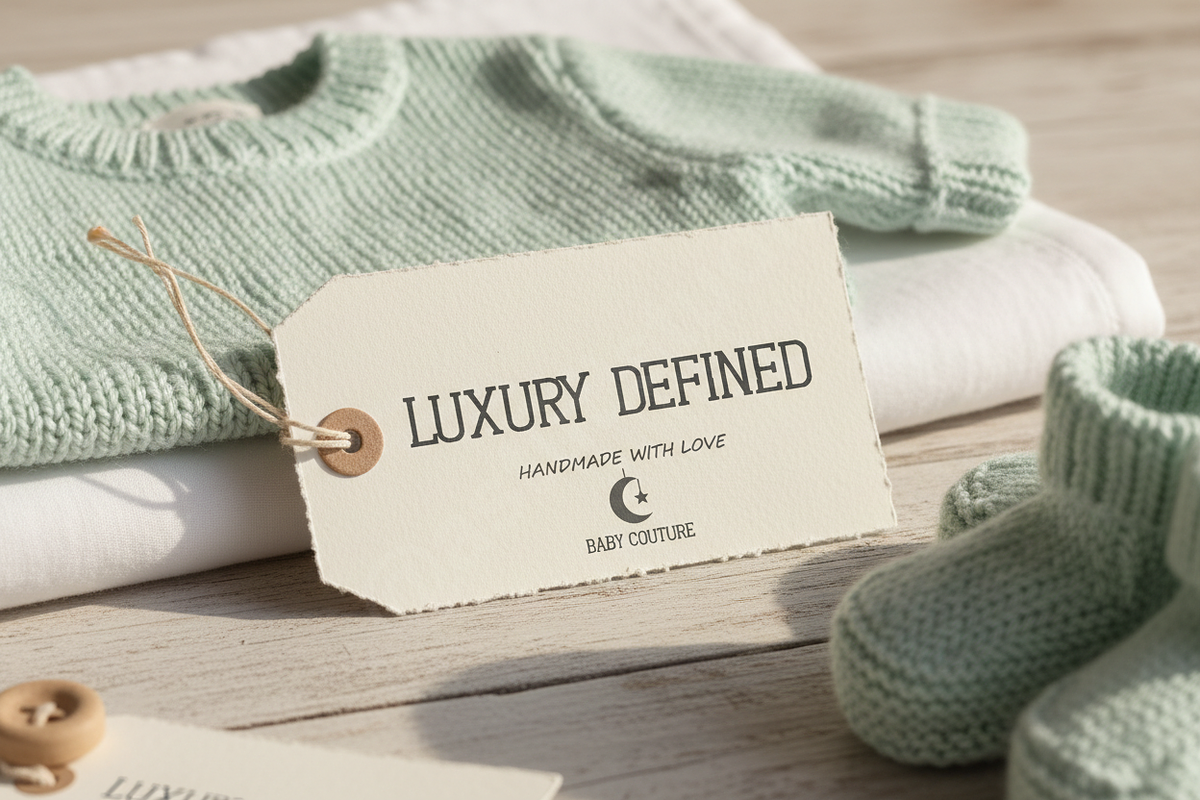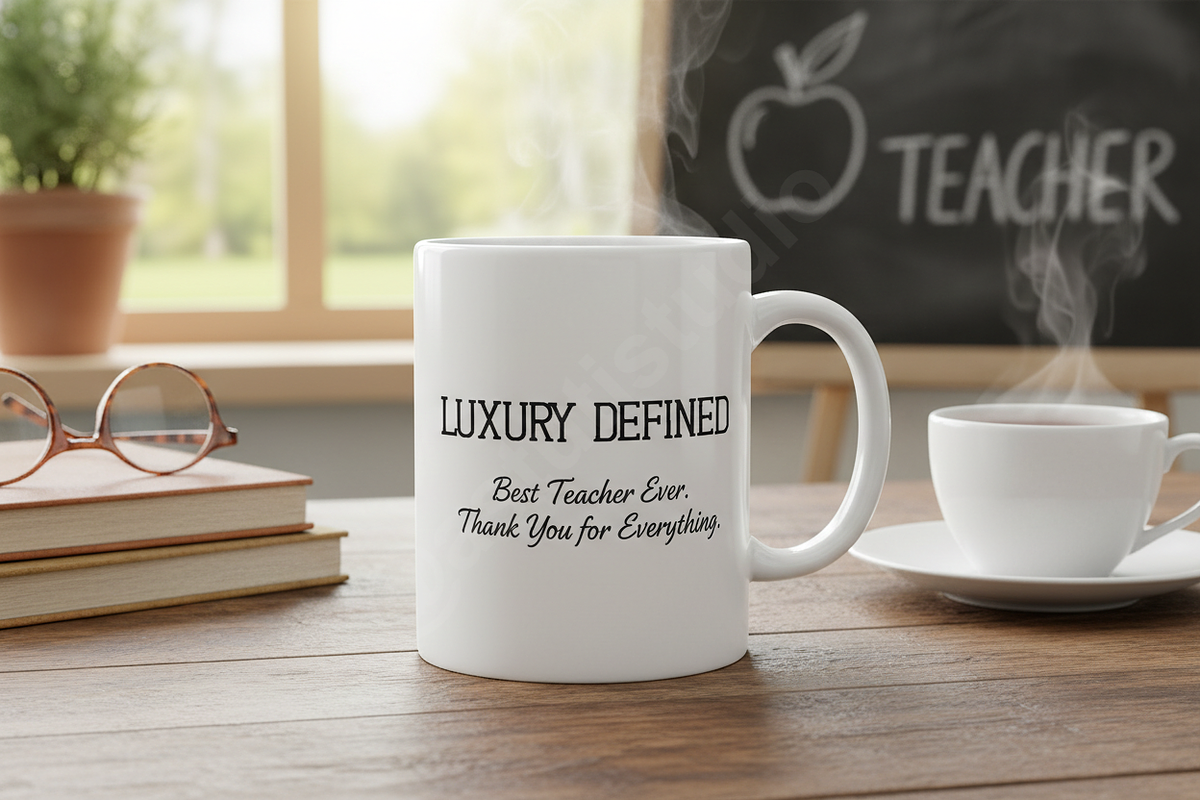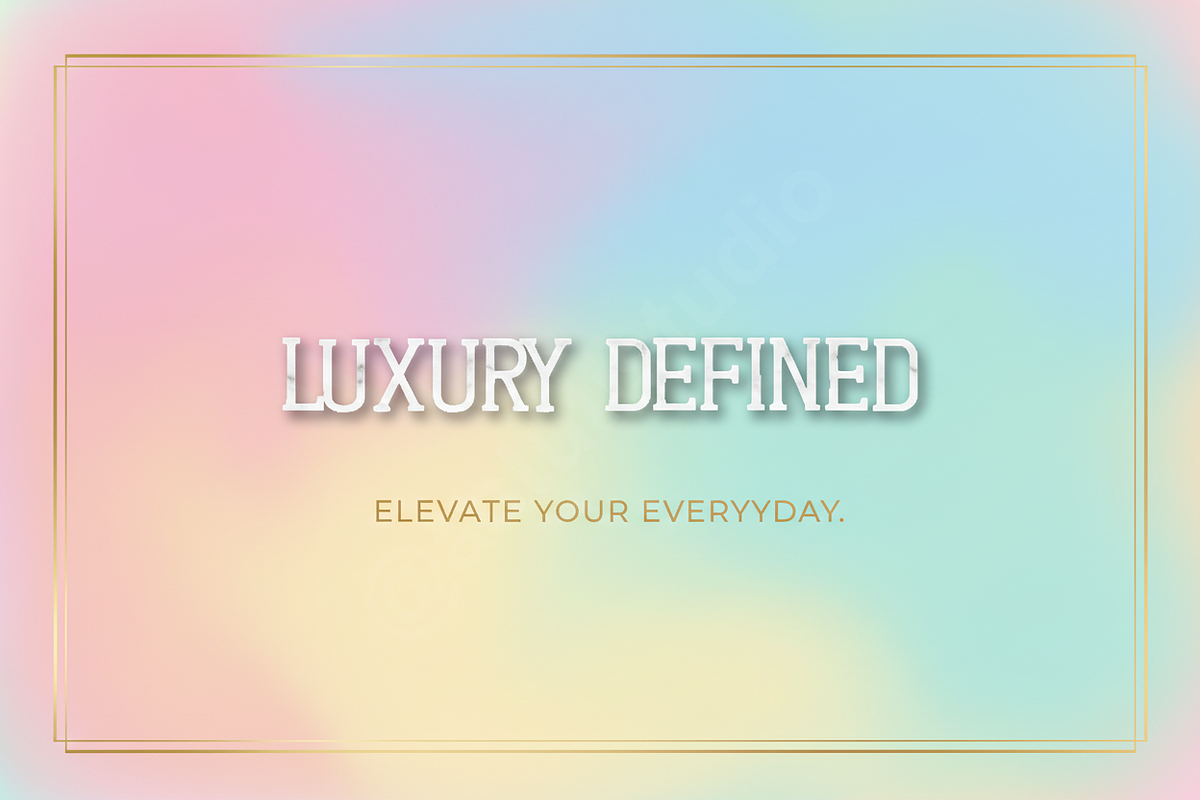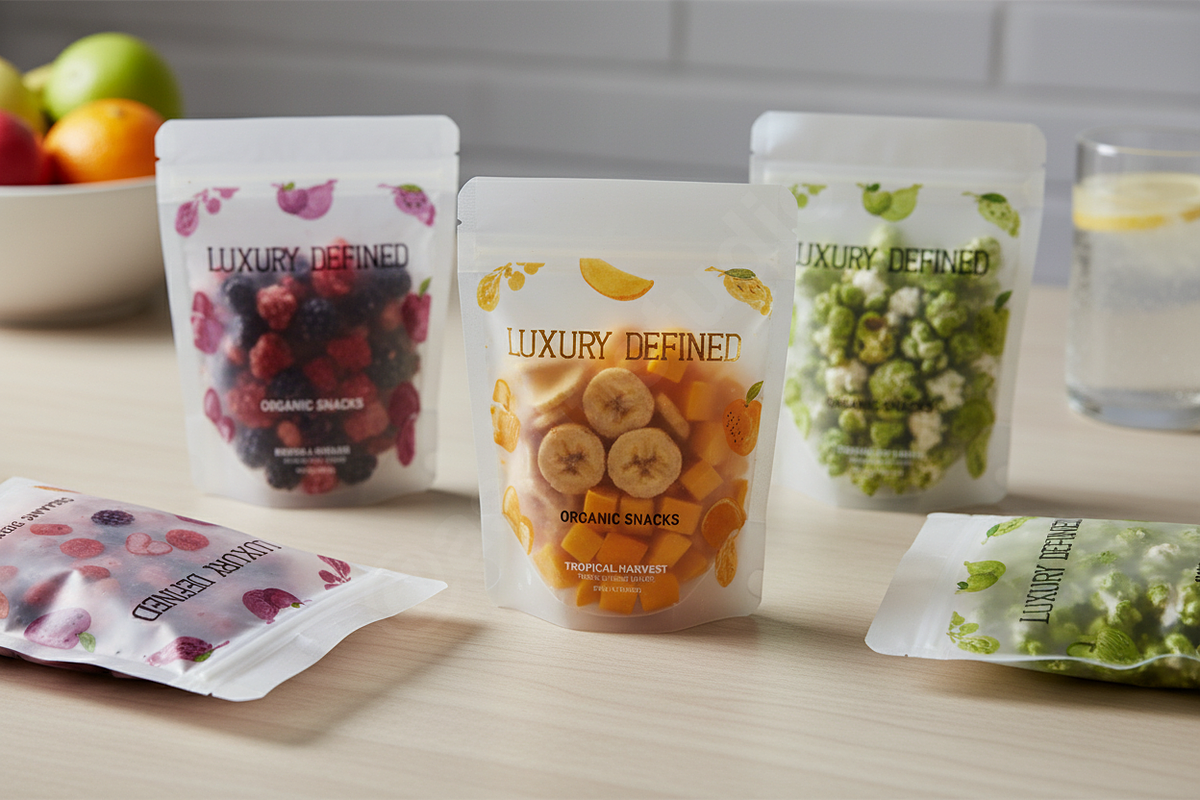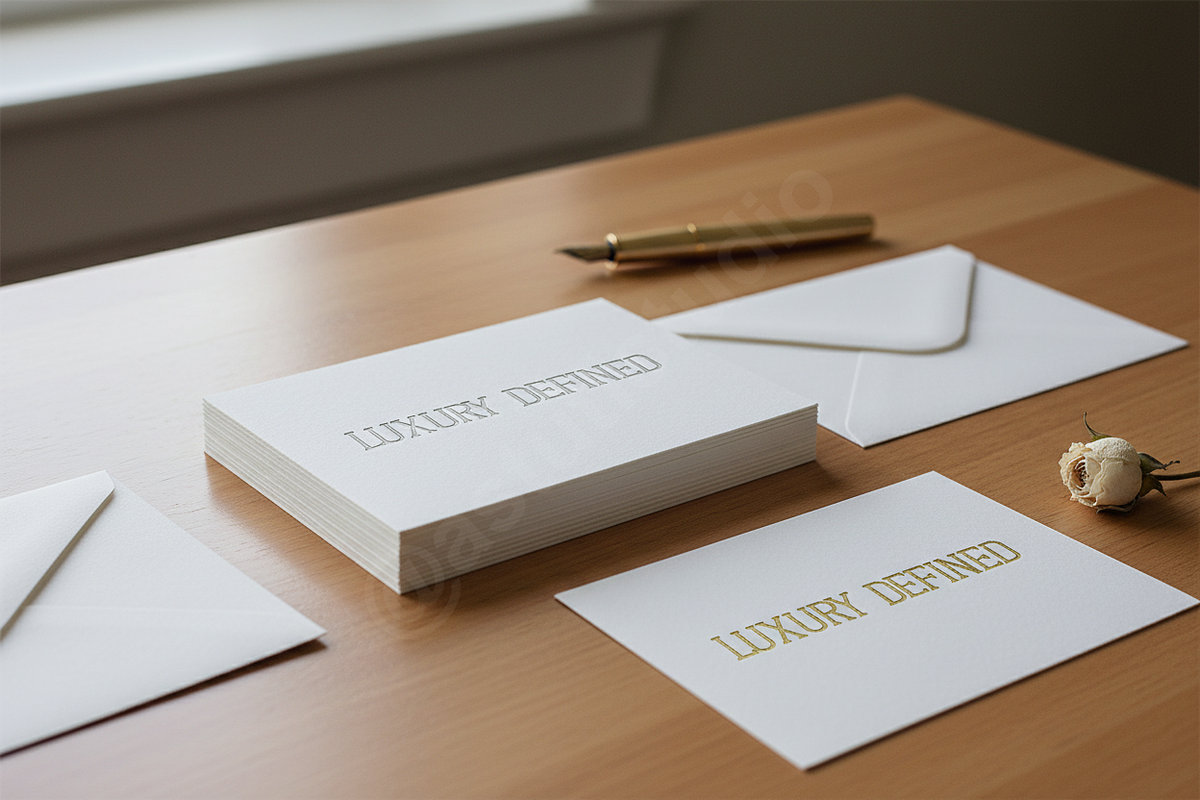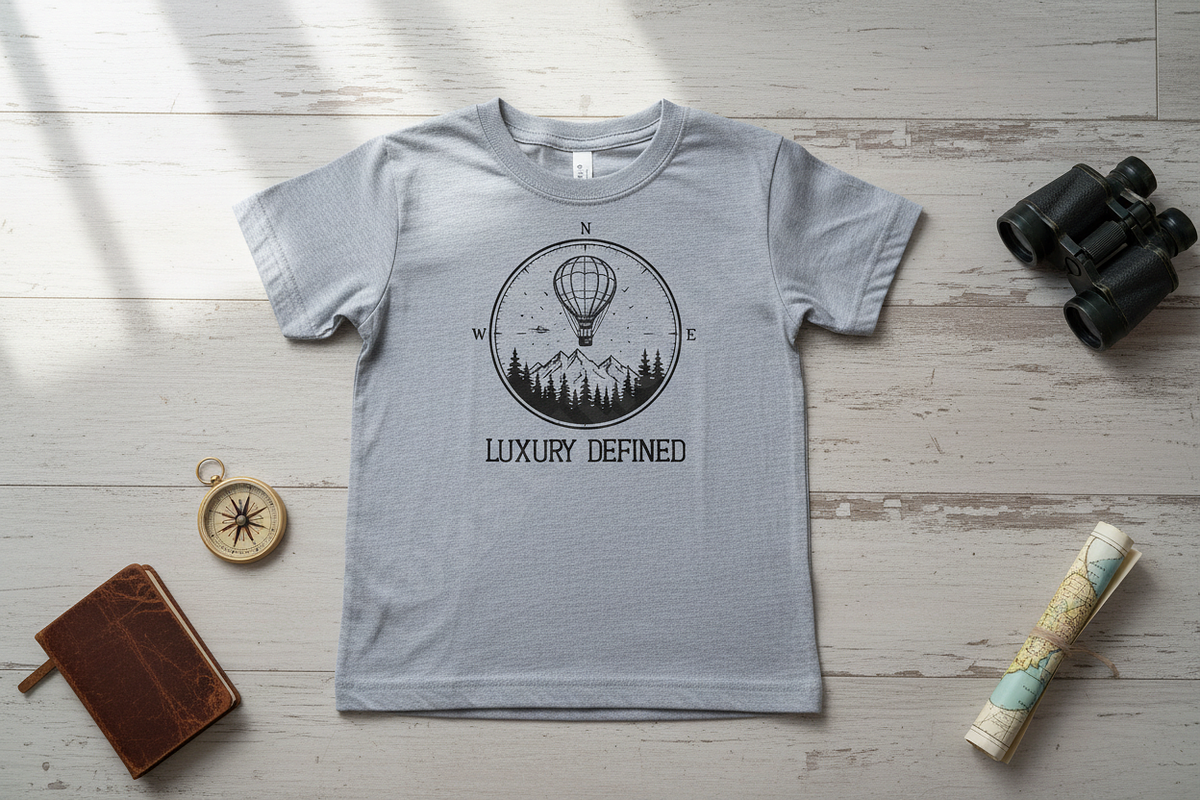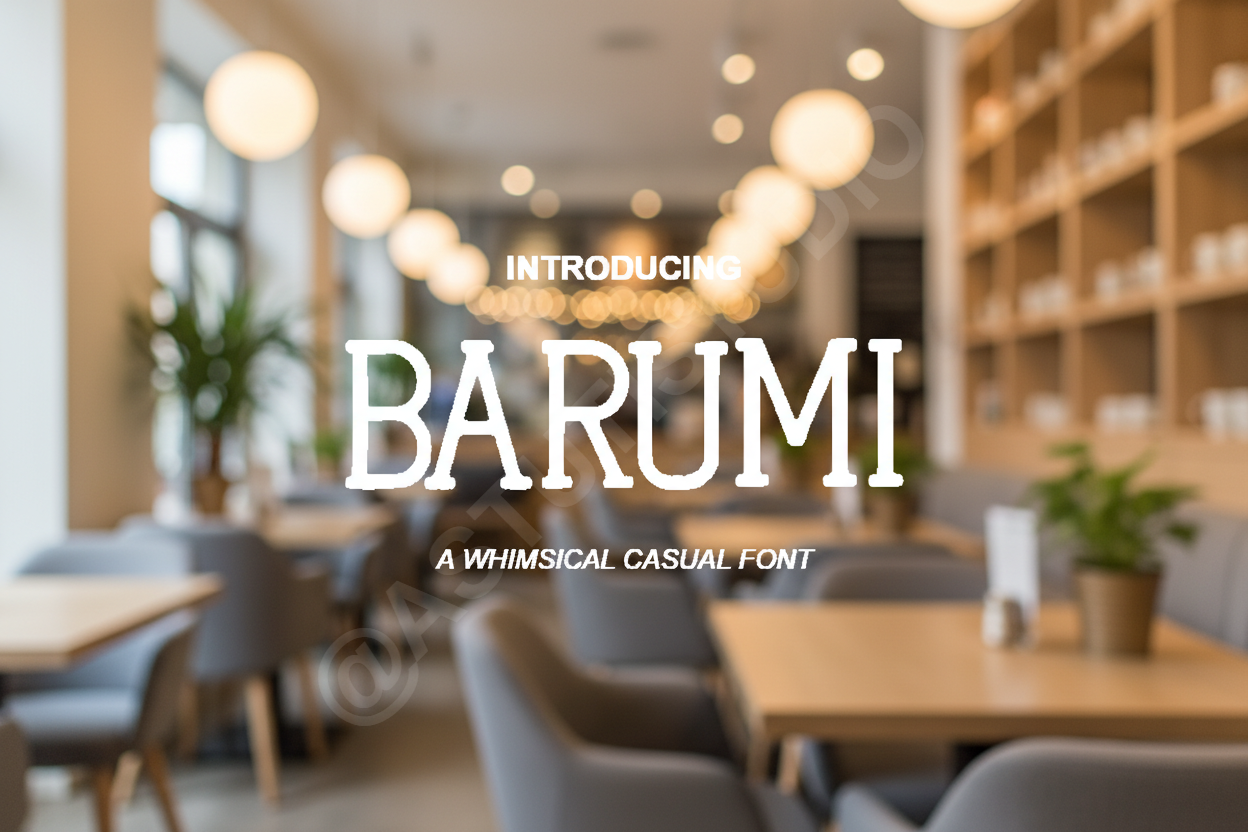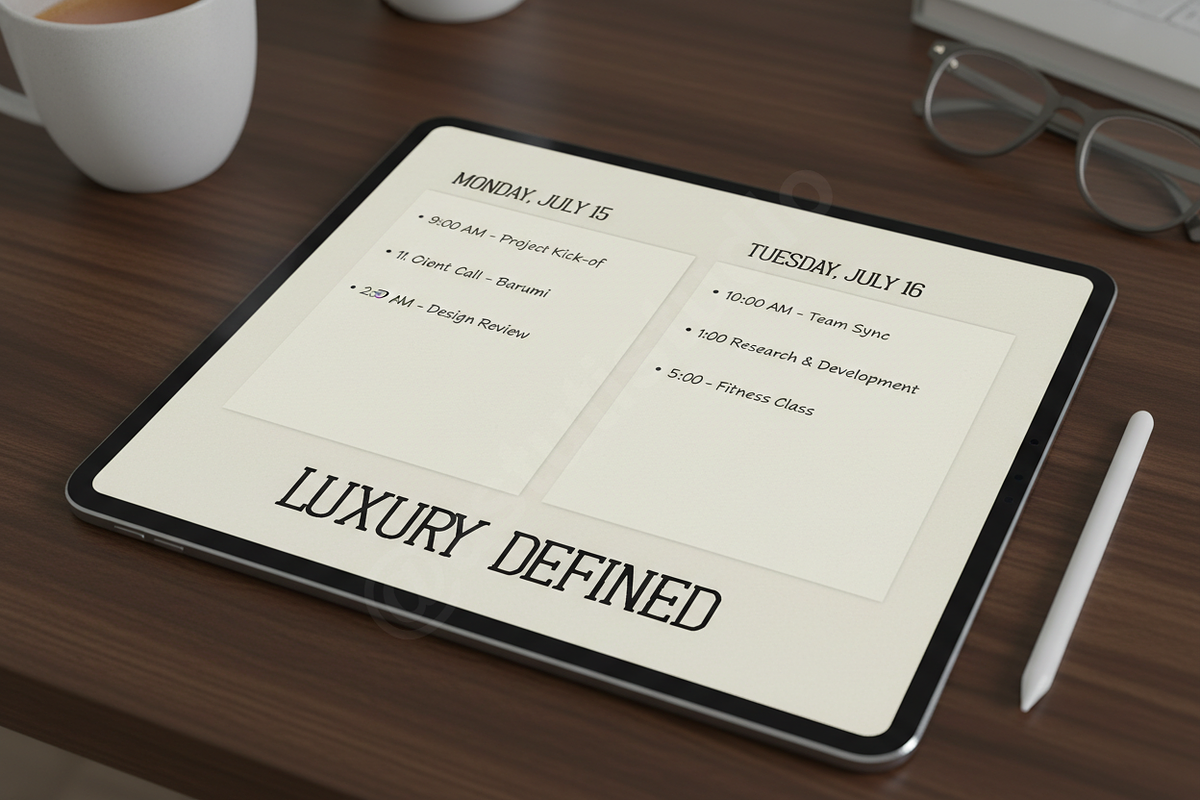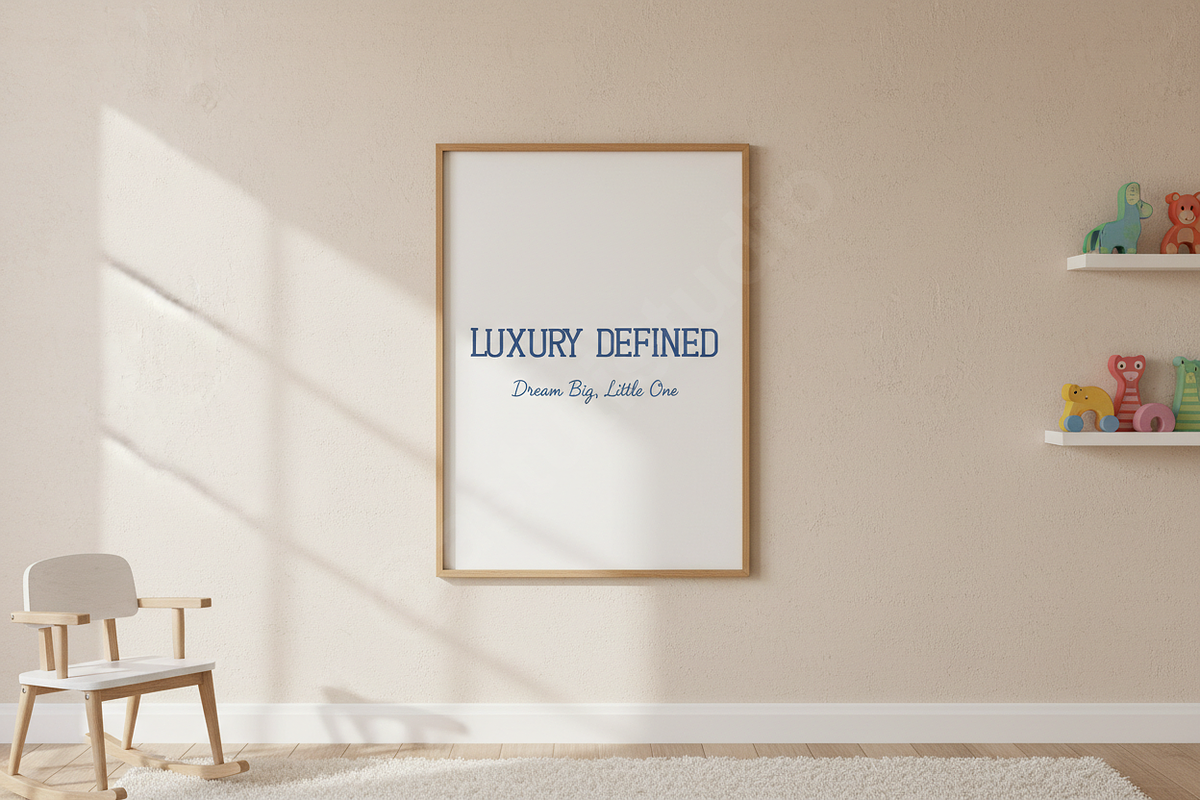
Barumi Playful Handwritten Font | Cu
✨ INTRODUCING BARUMI ✨
Barumi Elegant Serif Font - Luxury Display Typeface for Modern Branding, Magazine Titles, High-End Logos, Packaging & Sophisticated Design
Elevate your designs with Barumi, a Luxury typeface carefully crafted to bring a professional touch to your creative projects.